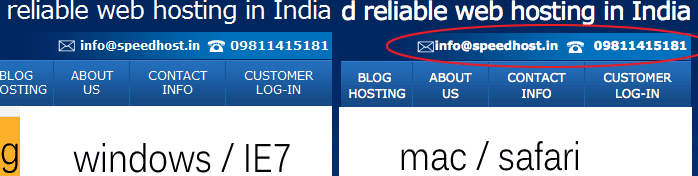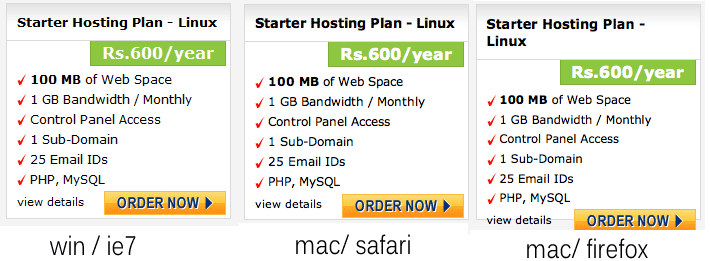
I have been using windows for the last 10 year now and finally decided to switch to mac.. i am designer and do a lot of photoshop work and web design. I noticed on mac that some of the fonts on websites seems bold while others are normal link in the PC... i thought it is just a safari issue and so i downloaded firefox, but the problem was in both. I changed the setting in safari for font but that did not help. I tried system preferences and made the lcd font rendering thing to not less than font 12 that did help but only in safari and not in FF... i have searched various forums but nothing helped. i am very new to mac so please suggest something which i can do to get this working straight.. i design websites and if what is design on mac is going to look weird on PC's the the whole point of switching to make would be a waste..
I don't know why it would be doing that. I've never designed a web site. My intuition tells me that it's not the difference between the Mac OS and Windows that causes it. Maybe a quirky font? Do you notice the same thing with multiple fonts, or only a few of them?
strange enough... the font is the same as in all over the website.. and pretty much everthing is a bold just the degree varies. Some are just a little bold which does not bother me but then some (in the example) are close to breaking the layout.
What you're talking about is the difference between Windows' ClearType and Mac OS X's Quartz font rendering. I read a fantastic article a while back comparing the two, but there are the best I could find on a moment's notice:
Bottom line: that's how it's supposed to behave. Windows prefers legibility over being faithful to the font; Mac OS X prefers to obey the typeface designer. As a result, small text on OS X can be blurrier, but is also much more true to the typeface than Windows.
I just installed Safari for PC and saw my website on it, the font are perfect, just the way IE or FF displayes on PC so i guess this is a MAC issue and not a browser related but i still refuse to believe that this is how MAC works.. any designer would understand my plight. I can be desiging on MAC to see it looks totally rediculous on all PC's which is still what the majority of people are using as primary computers. I am sure there has to be a solution for it.
I went though the articles in the above post but they are mostly anti-aliasing and not the bold problem.. so i guess i have to keep looking.
The "bold problem" is antialiasing. As a result of the softer, more accurate antialiasing used on Mac OS X, small text sometimes appears bolder than it does on Windows.
I turned off antialiasing for less than 12 font size in mac preference (not safari preferences) and it kinda worked in safari.. though the font became pixilated but in firefox there was absolutly no change... the font remained as is... if i made changes in mac preference then it should have applied to all browsers but some how it did not.